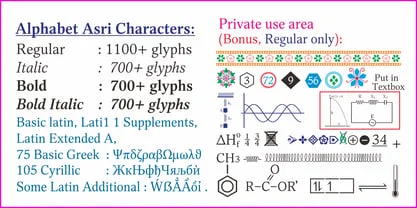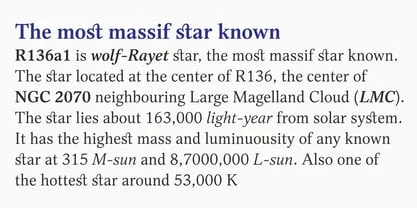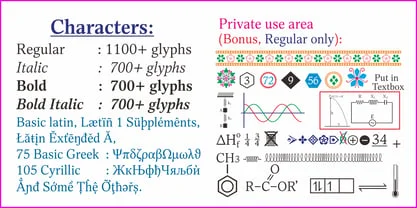
Alphabet Asri Font
When a design brief calls for both visual harmony and precise spacing and immediate visual impact, type choices matter — Alphabet Asri answers that brief. The typeface brings a versatile sensibility to a broad range of creative disciplines, with consistent type colour across continuous text that holds up whether the work is print-first or screen-first.
In practice, Alphabet Asri proves particularly effective for logo design, packaging design, editorial layouts, web design, environmental graphics. Designers reaching for it find that the type decisions feel resolved rather than laboured — a useful quality when client timelines are tight.
The range of applications extends to social media graphics, signage systems, product labels, annual reports. That breadth is deliberate: the proportions and spacing were stress-tested across a wide range of mock briefs before the typeface was finalised.
The consistent rhythm of Alphabet Asri across a full paragraph creates the kind of even grey value that makes extended reading comfortable, a detail that matters more in long-form content than its subtlety might suggest.
Motion designers building title sequences and lower thirds find Alphabet Asri a reliable choice for projects that demand both personality and restraint. The design avoids the self-conscious quirkiness that dates quickly, settling instead for considered distinctiveness that holds up over time.